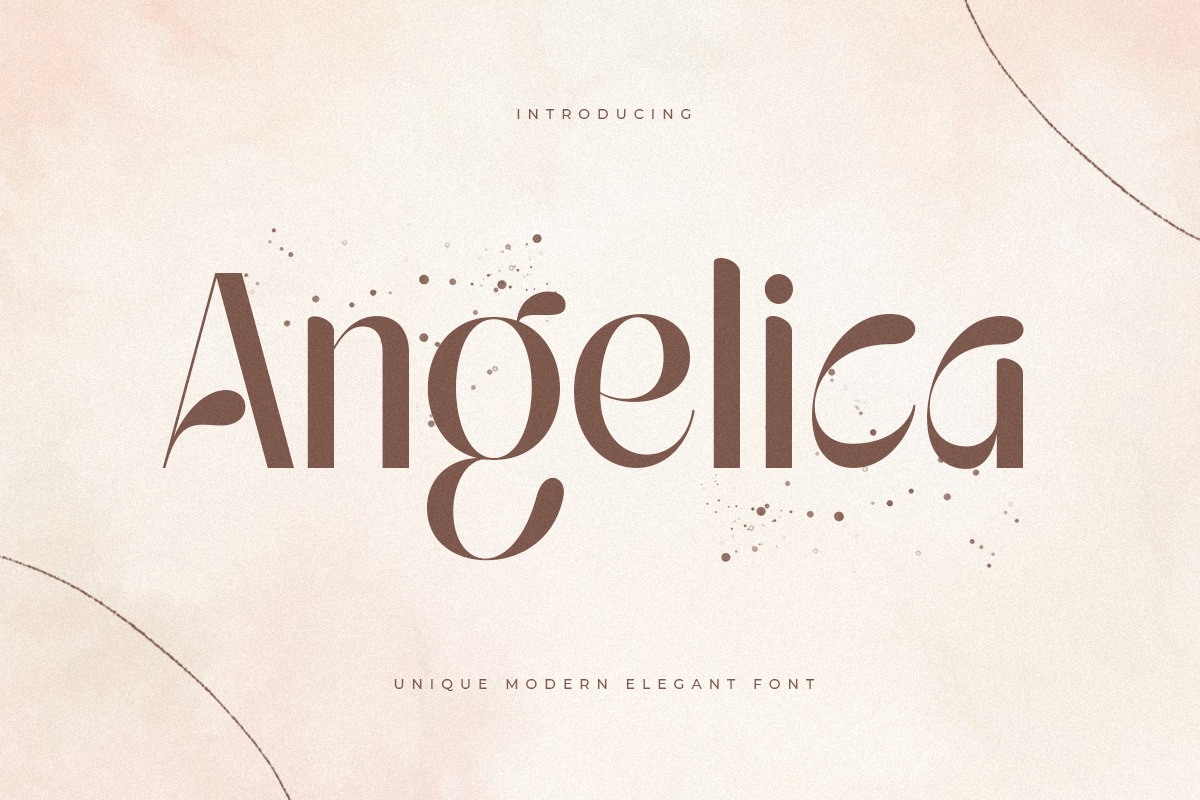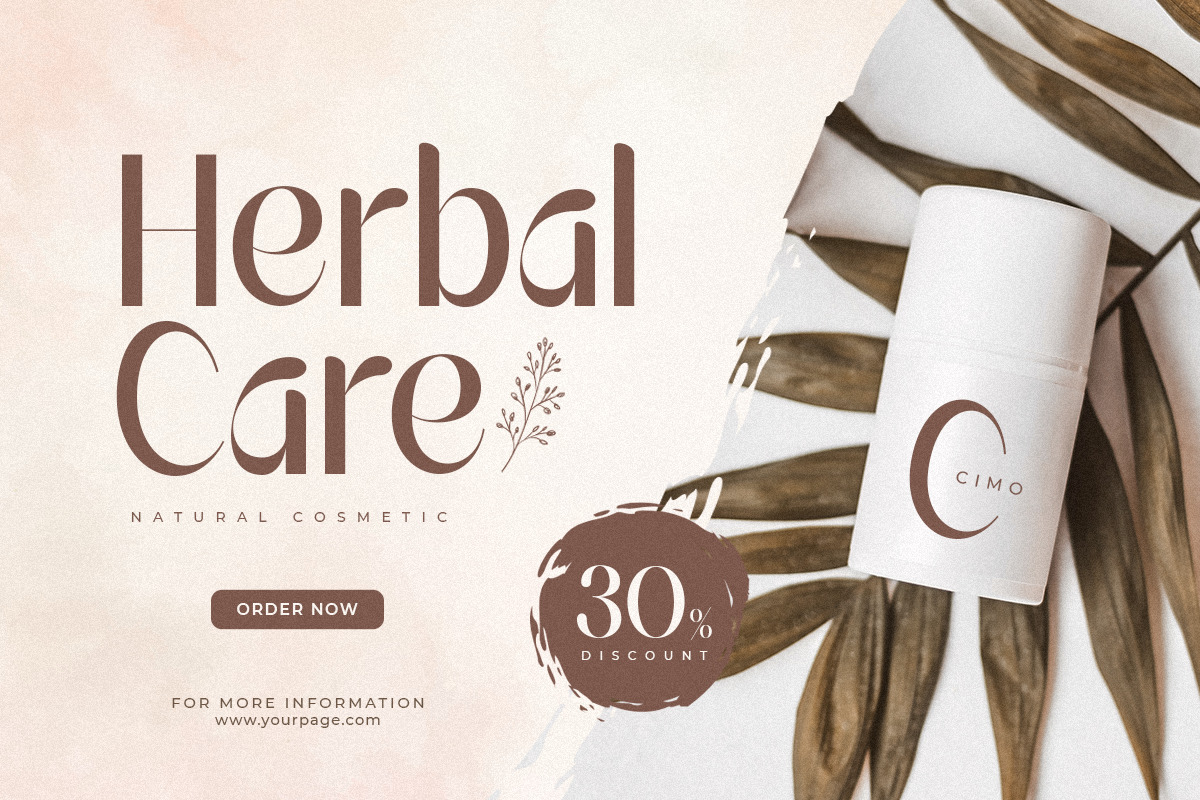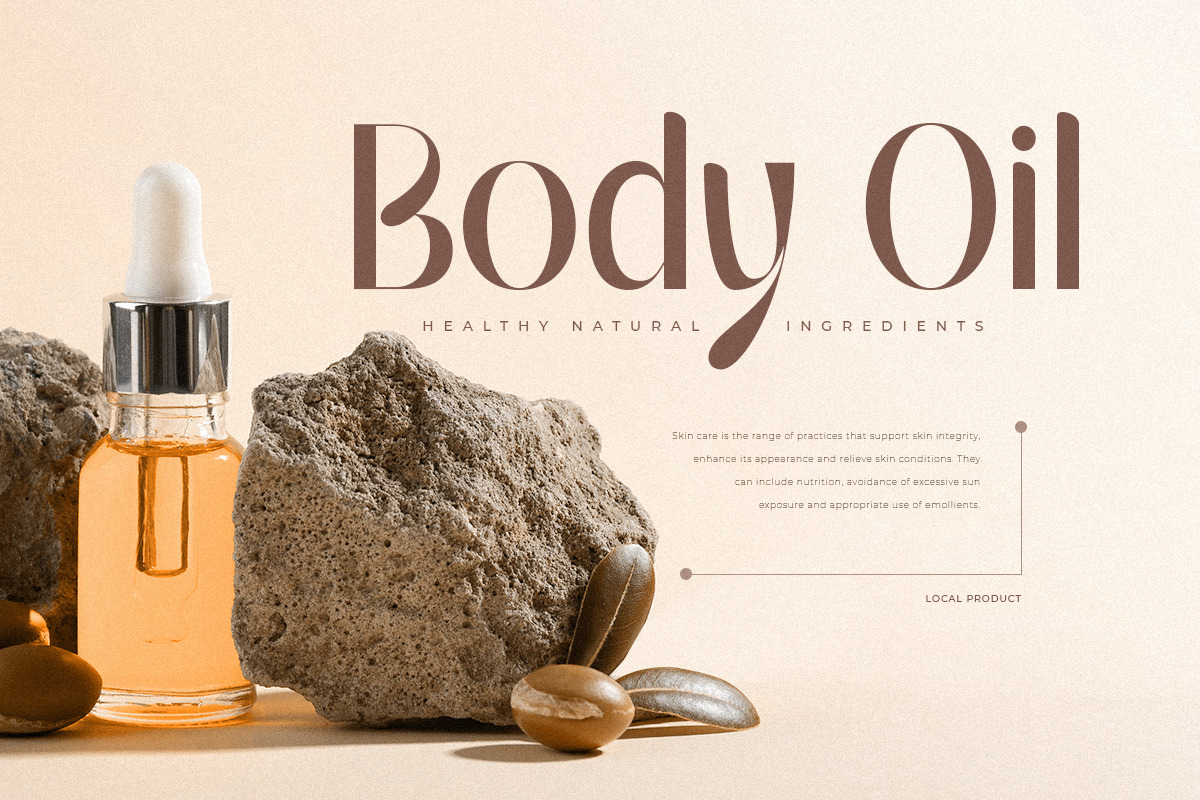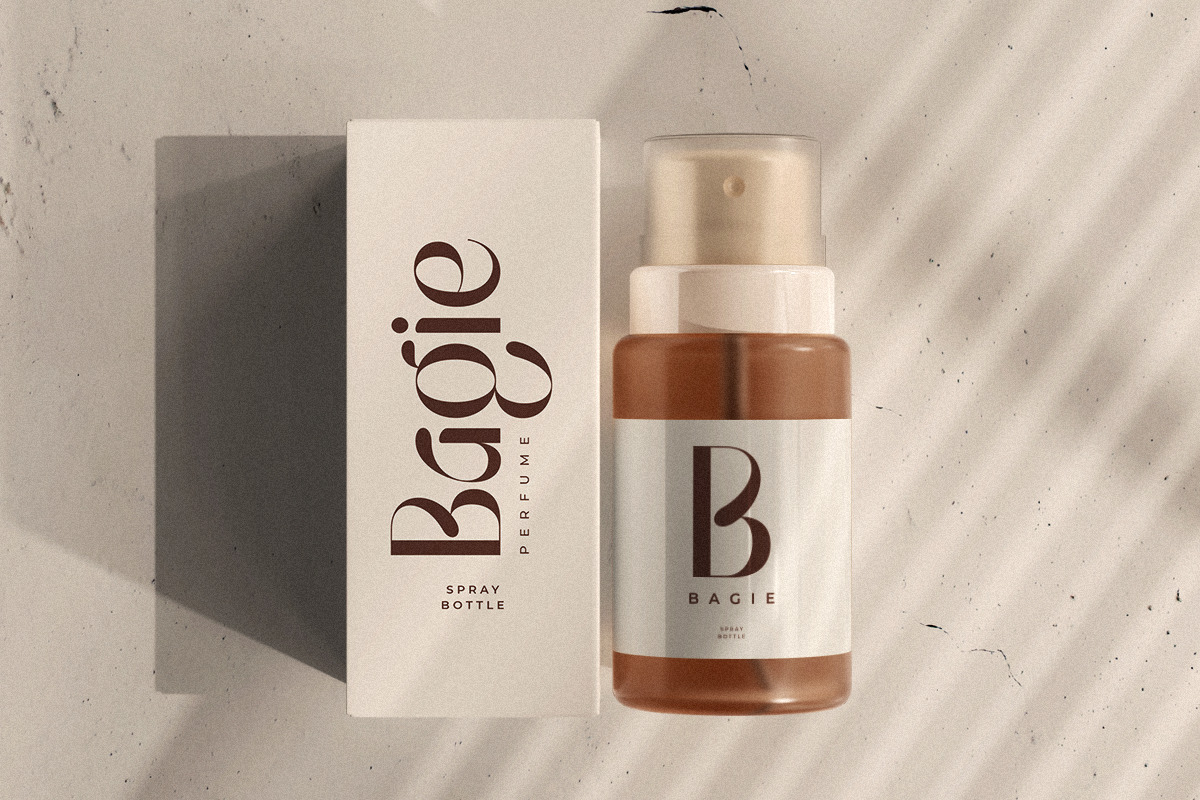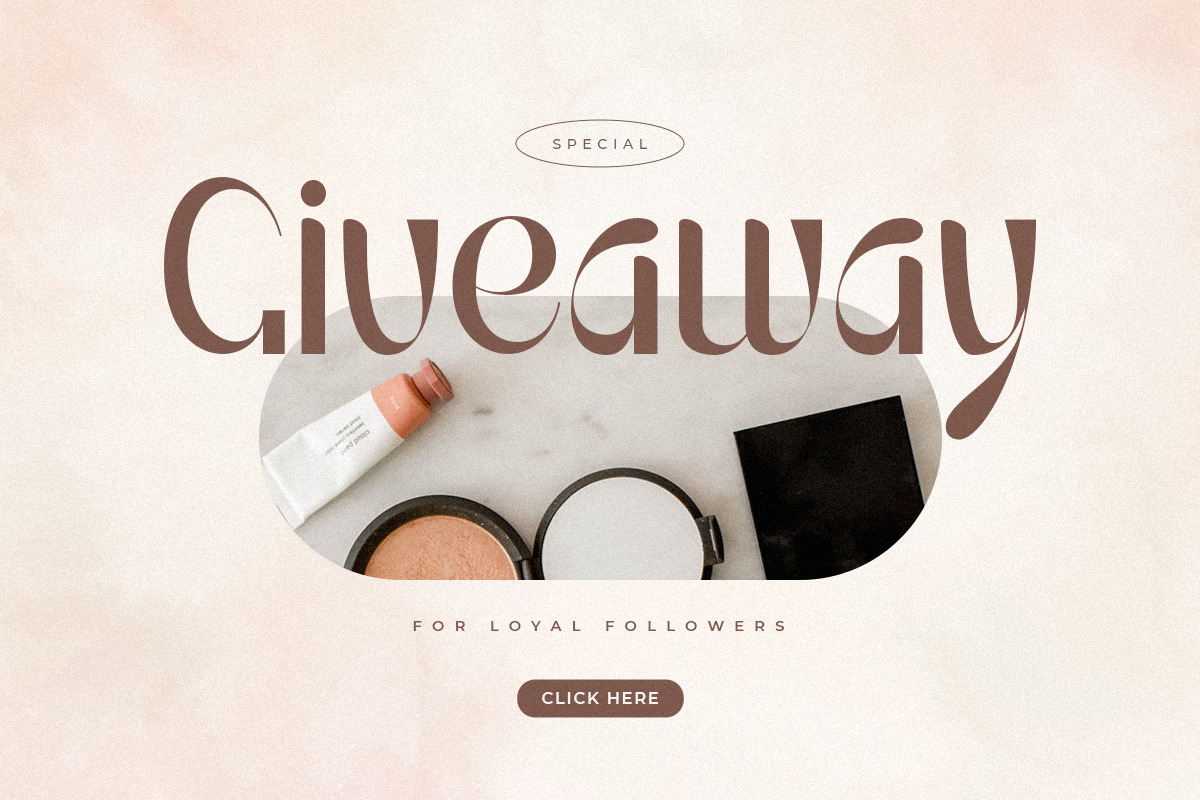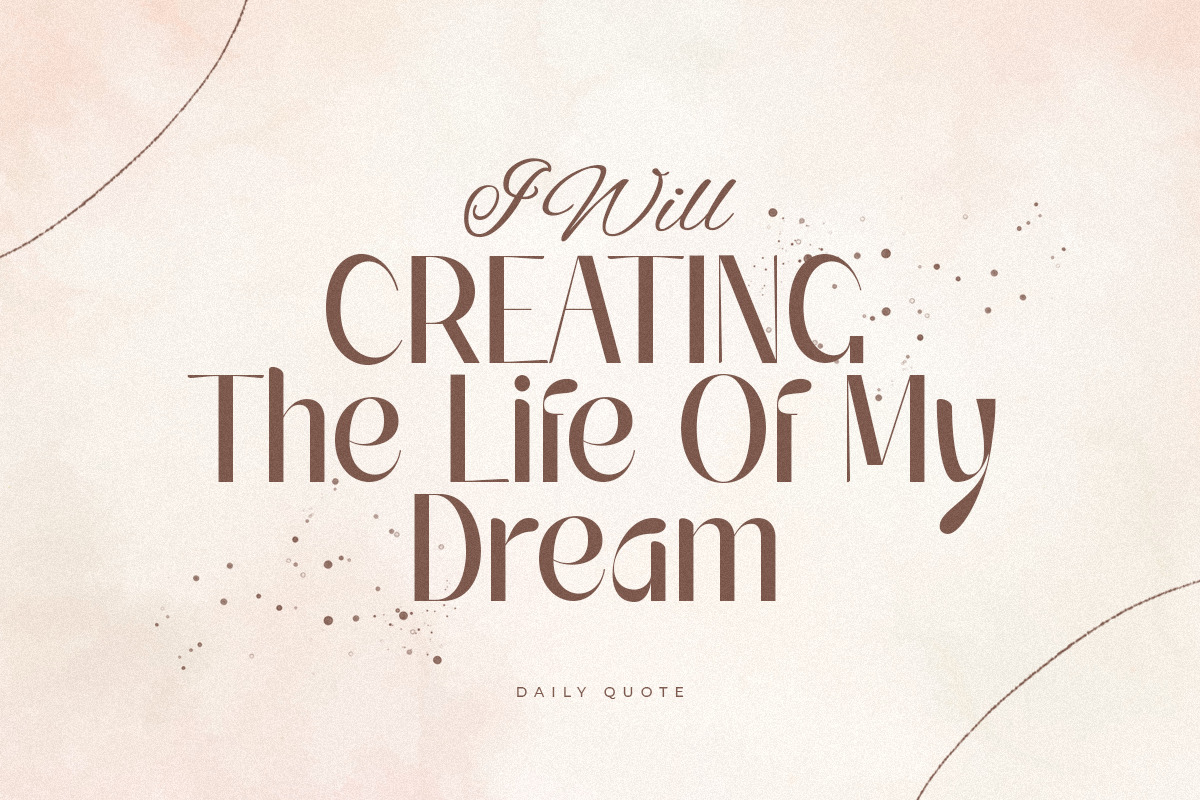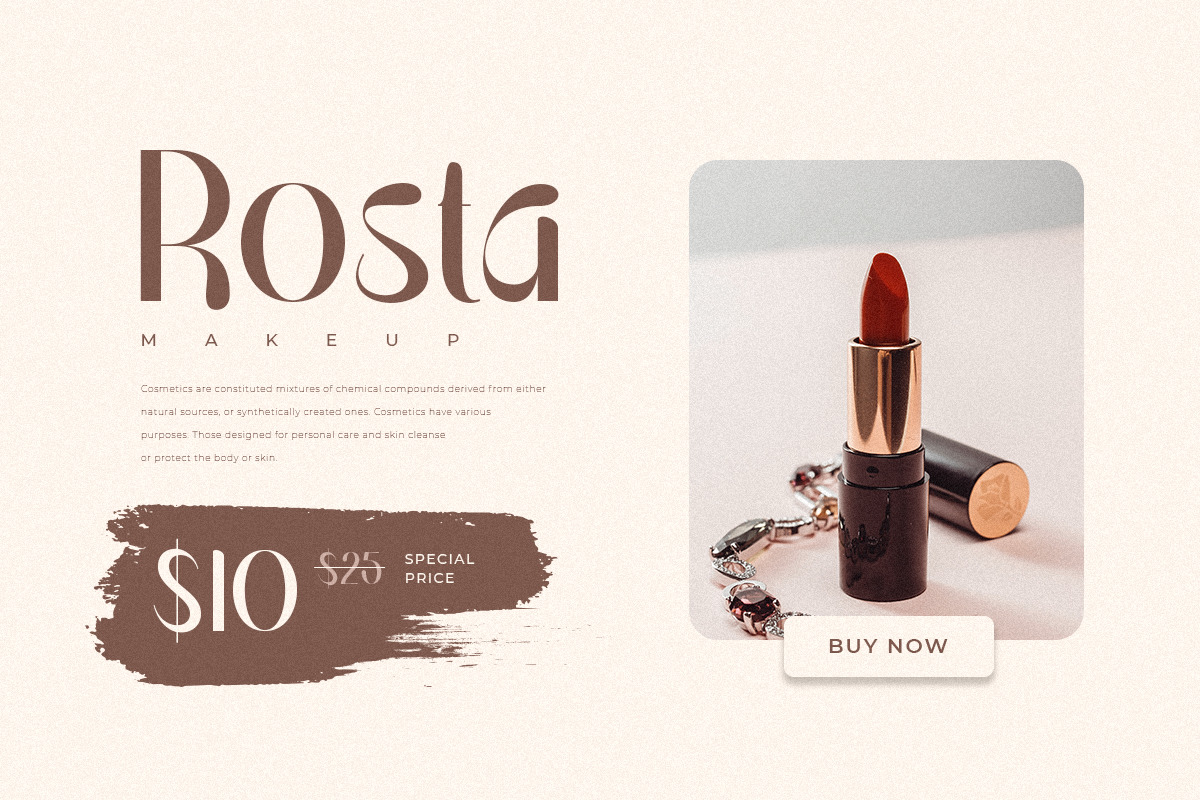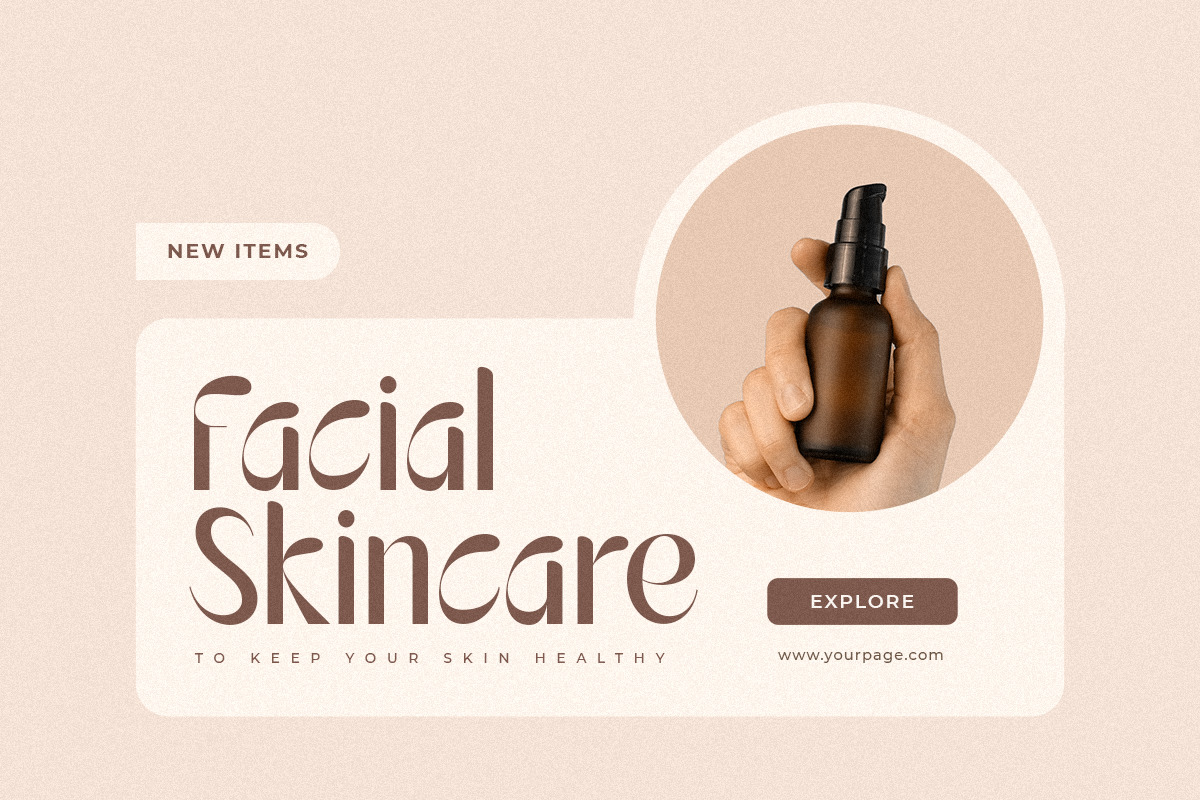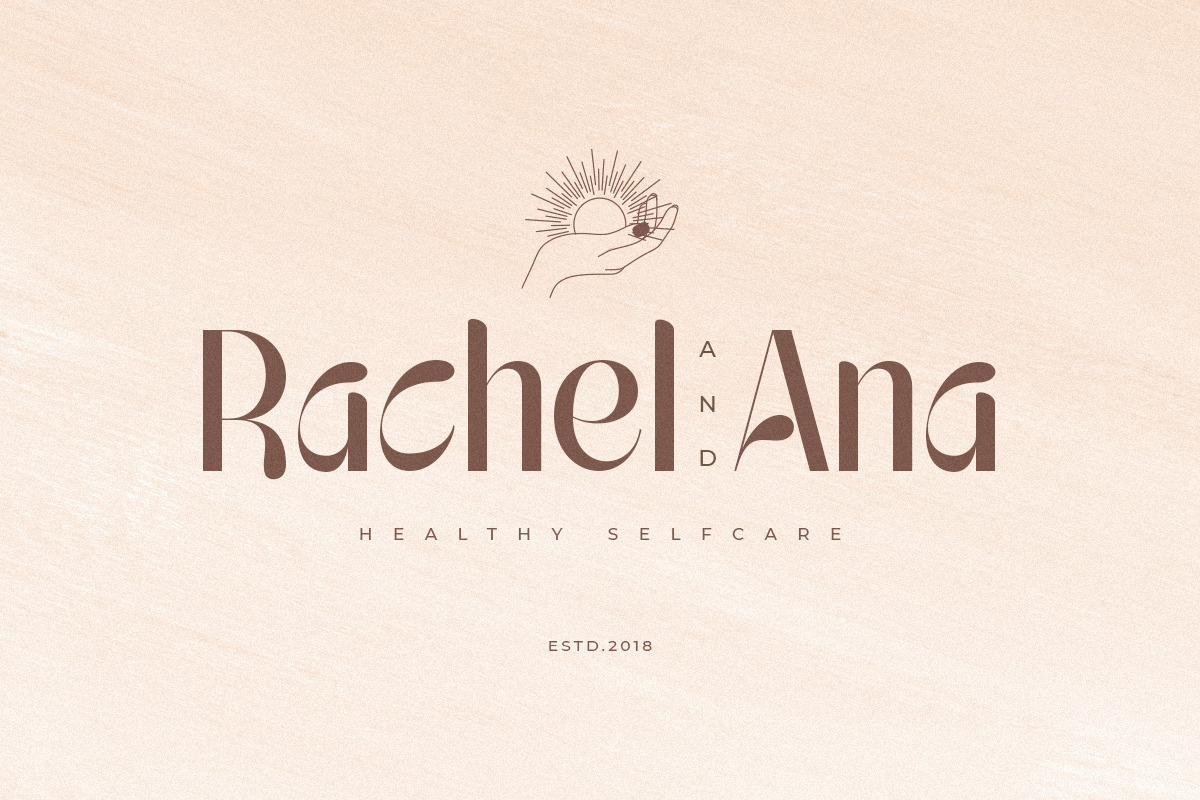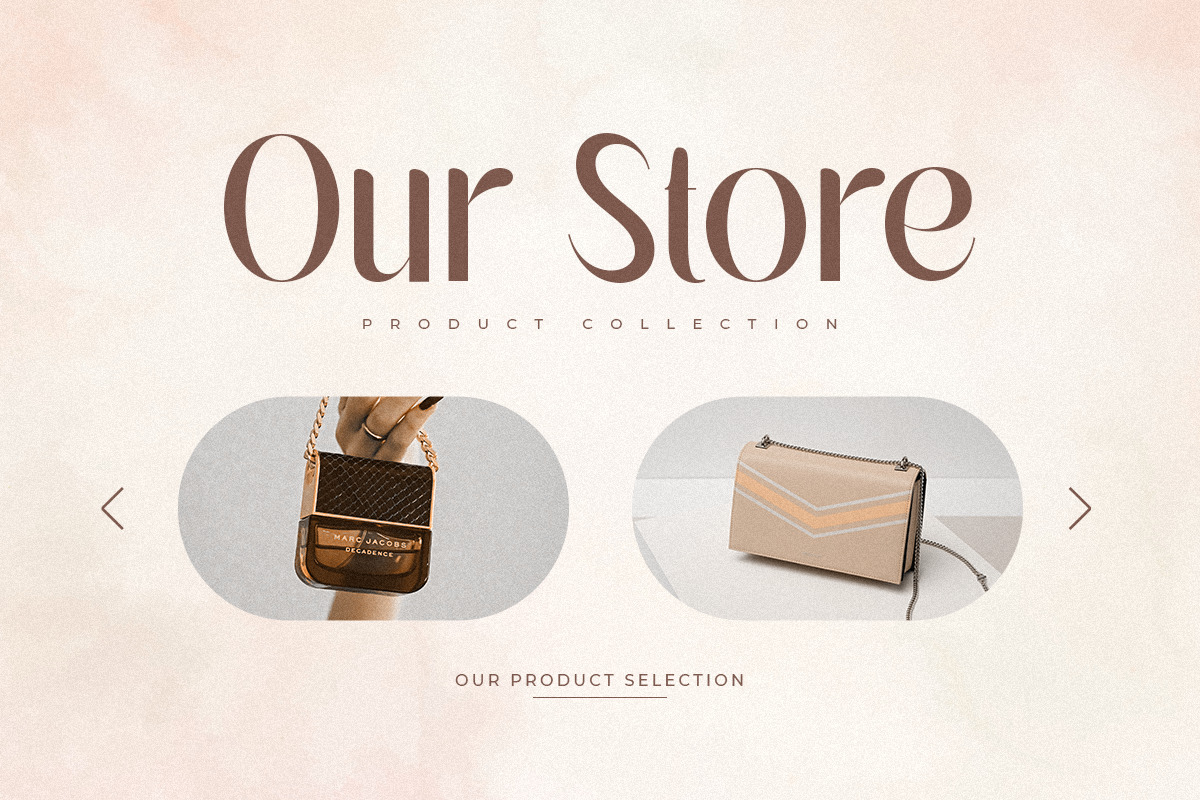
Angelica - Unique Modern Luxury Elegant Font
An Unique Modern Luxury Elegant with casual chic shape. It is perfect for any branding needs, with unique shape will be ready to add value of your brand. It so nice to leverage designer or product owner that need solutions to make their design look more Luxury and Elegant. And specially for Angelica font, We prepared two weights and nice shape to help you create unlimited variations for your creative needs.